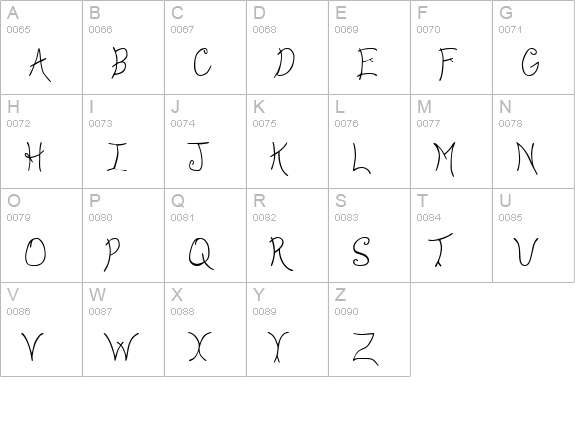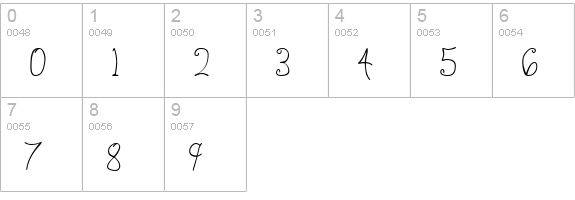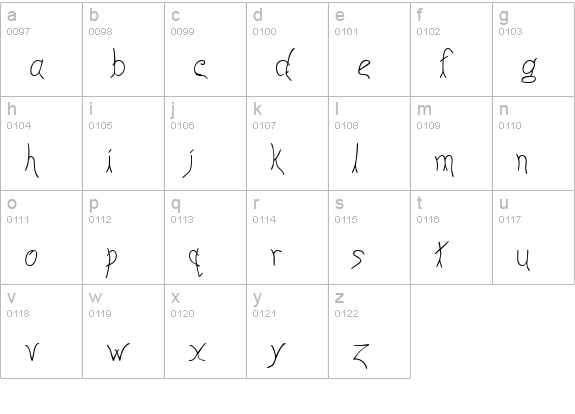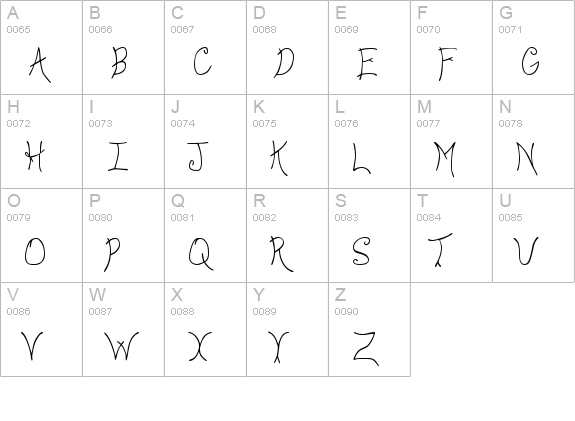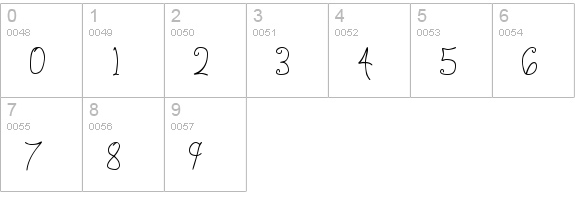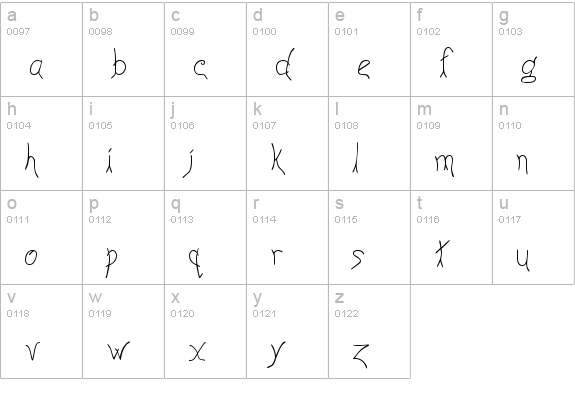
Anyway Light Font Details
Anyway Light is a refined, elegant variant in the Anyway typeface family \xE2\x80\x94 well suited to elegant body text, refined sub-headings, and luxury branding.
Anyway Light is a modern and elegant font that exudes sophistication and style. With its clean lines and subtle curves, this font is perfect for a wide range of design projects, from branding to packaging to web design. The light weight of the font gives it a delicate and airy quality, making it ideal for adding a touch of elegance to any project. The best part? Anyway Light is completely free to download at FontsMarket.com. That's right, you can access this beautiful font at no cost and use it in your personal or commercial projects. So why wait? Enhance your designs with the timeless charm of Anyway Light today!